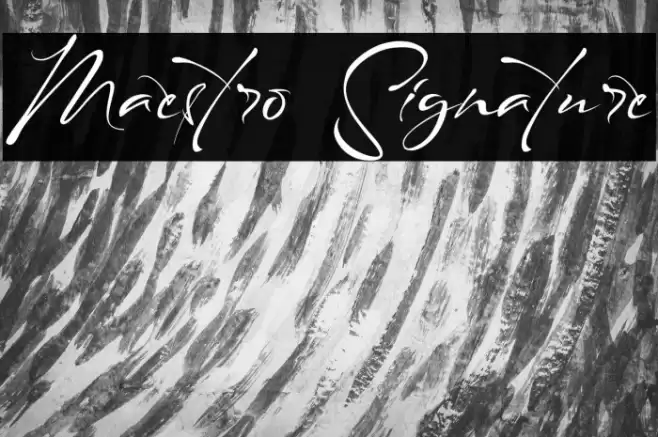
Maestro Signature Font
Maestro Signature Description
This font exudes elegance and sophistication with its flowing, cursive style. The letters are crafted with a delicate touch, featuring smooth curves and graceful loops that mimic the fluidity of a handwritten signature. The uppercase letters are bold and prominent, while the lowercase letters maintain a consistent flow, adding to the overall charm. The numerals are clear and stylish, complementing the script with a touch of modernity. Special characters are thoughtfully designed to blend seamlessly with the rest of the font, making it versatile for various uses.
| Overall Style | Elegant, Handwritten |
| Use Case | Logos, Invitations, Branding |
| Proposed Projects | Ideal for wedding invitations, personal branding, elegant logos, and high-end product packaging. |